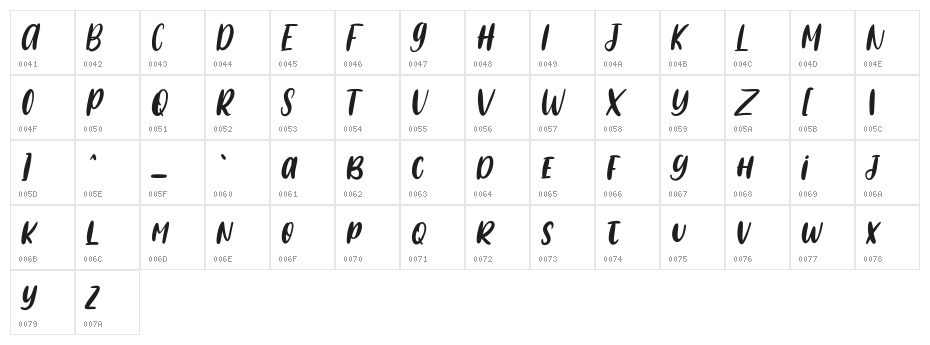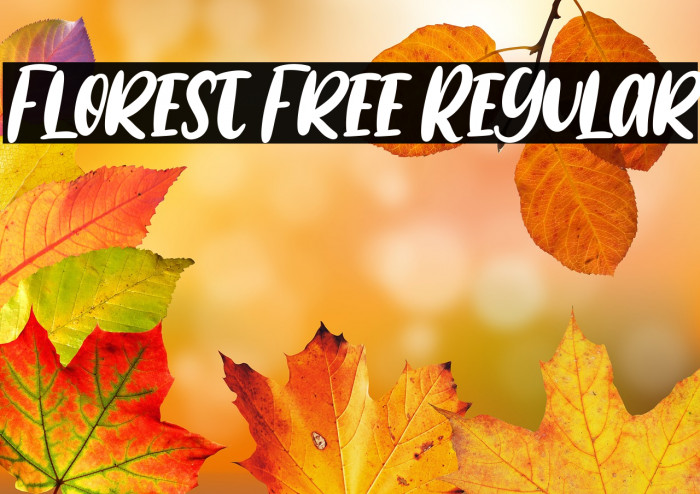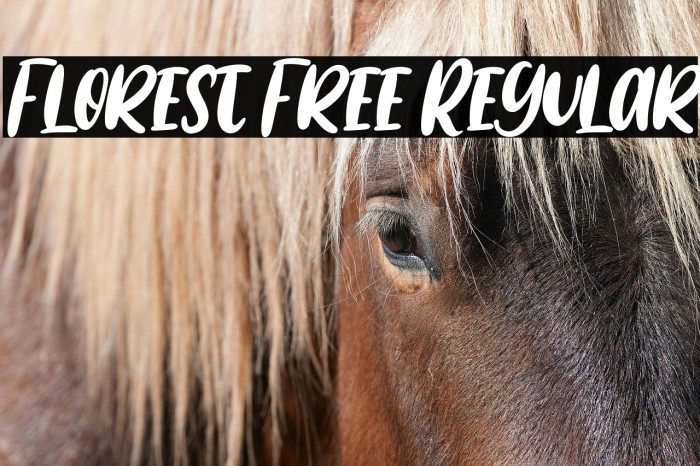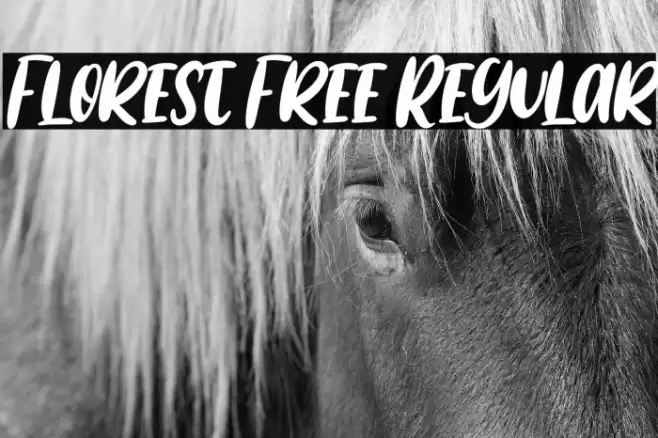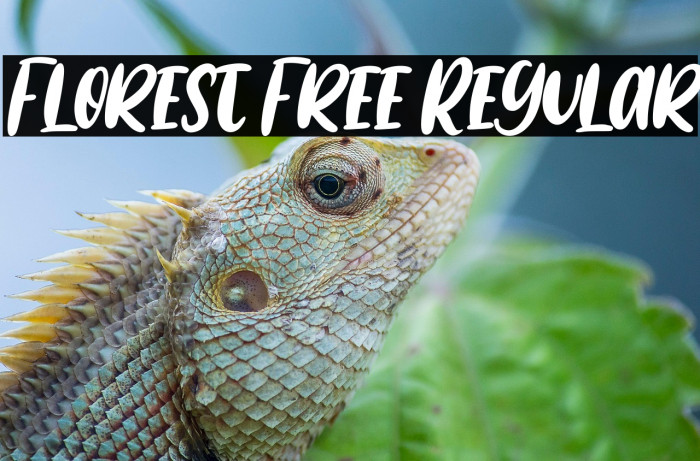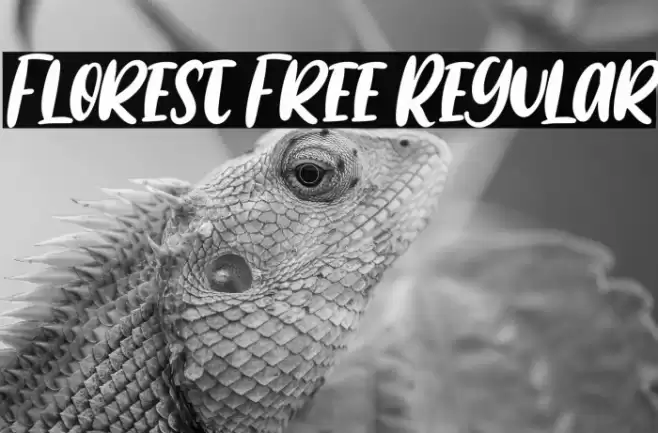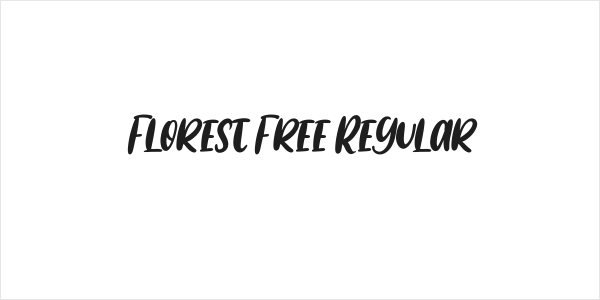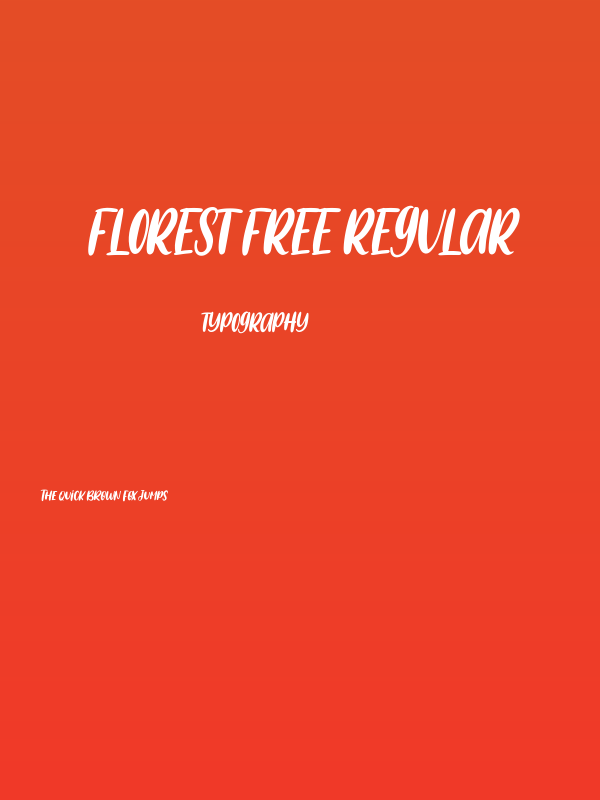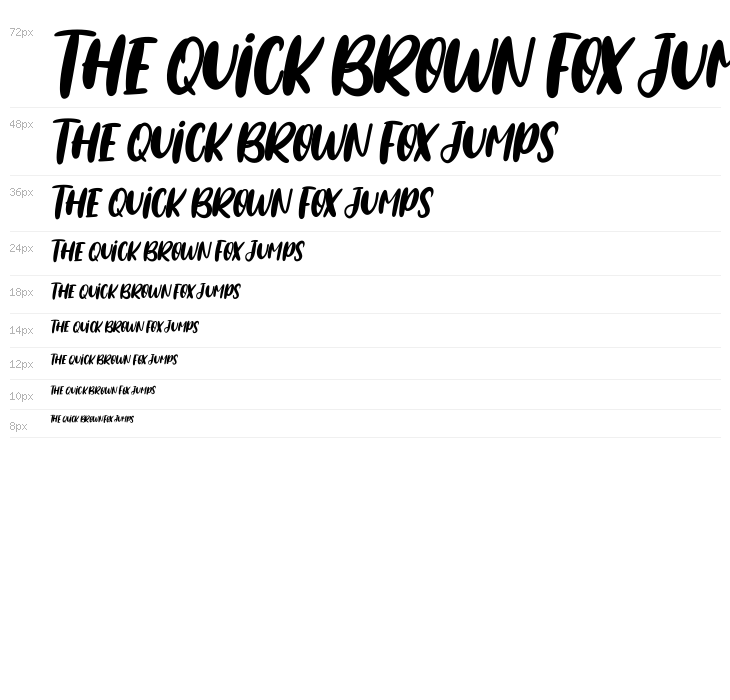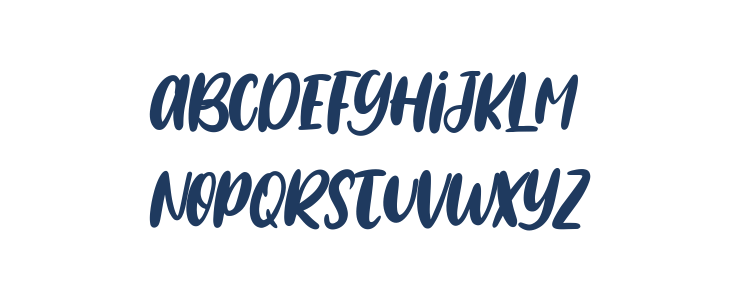
Florest Free Regular Font
Florest Free Regular Description
This font features a bold, handwritten style with smooth, flowing curves and a playful aesthetic. The letters are closely spaced, creating a cohesive and dynamic look. The strokes are thick and consistent, providing a strong visual impact. This font exudes a sense of creativity and energy, making it ideal for projects that require a personal touch. The uppercase and lowercase letters maintain a uniform style, enhancing readability while retaining a unique character. The font's design is versatile, suitable for various creative applications.
| Proposed Projects | Ideal for greeting cards, invitations, branding, and social media graphics. |